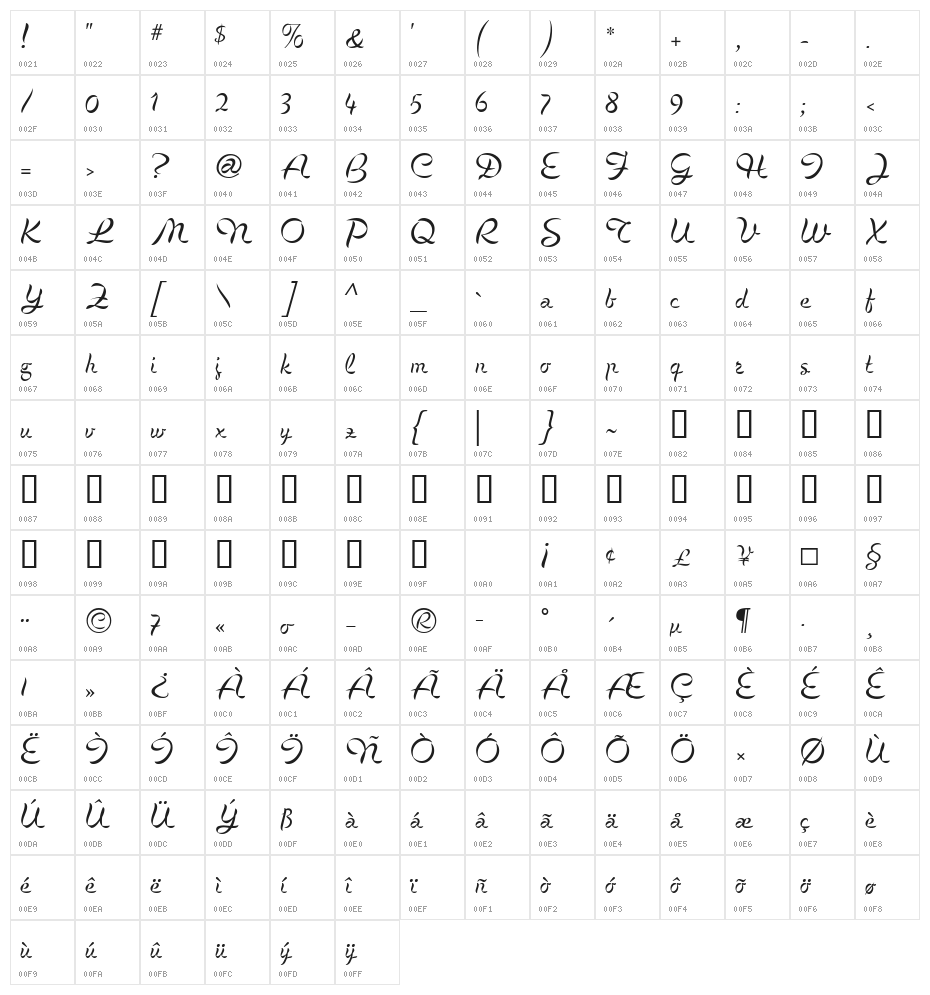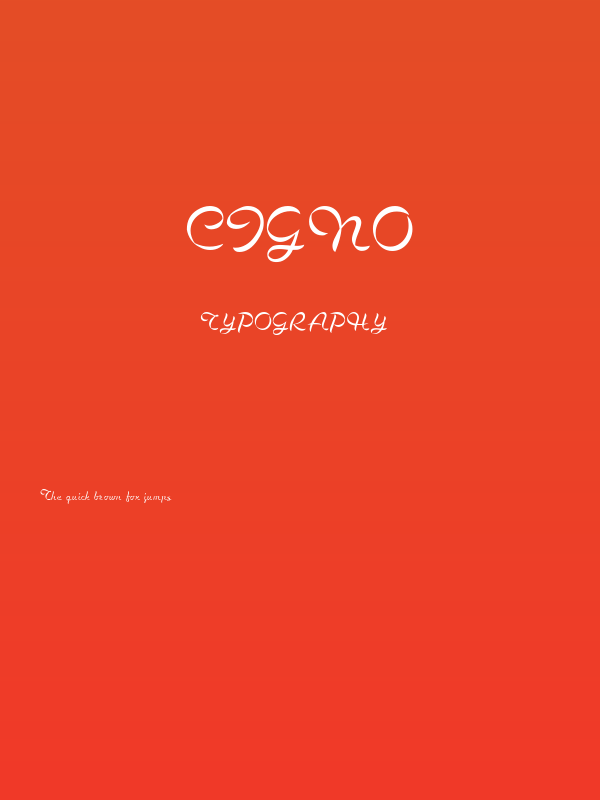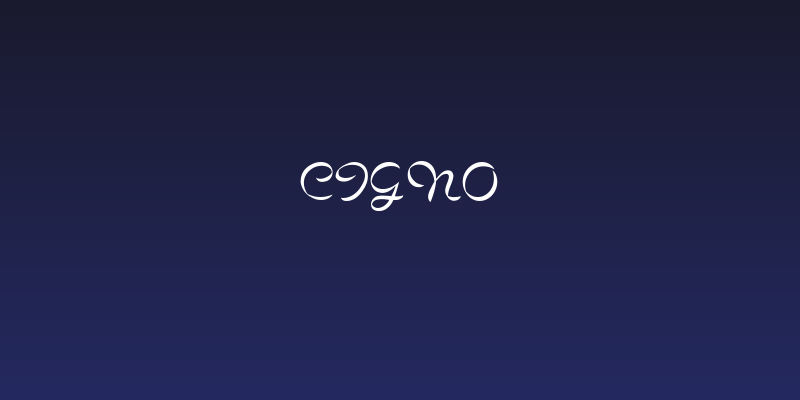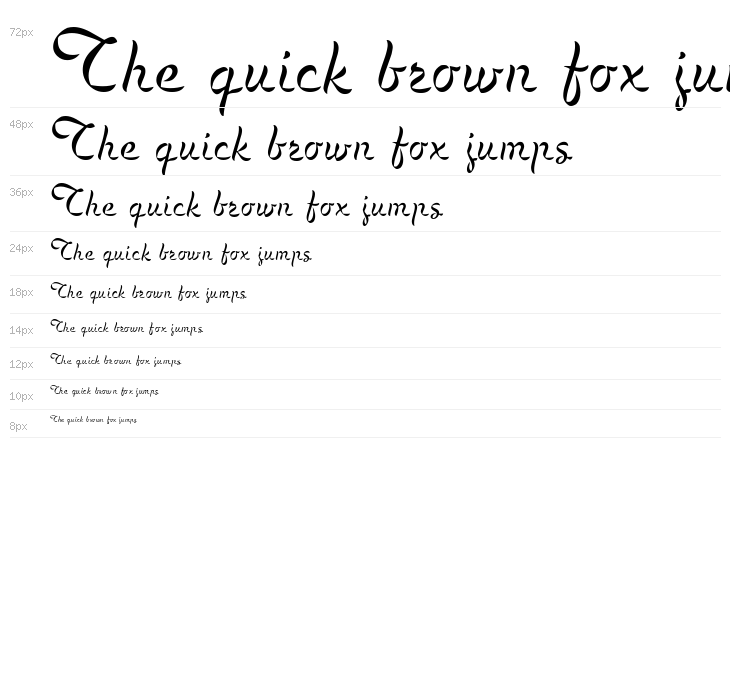
Cigno Font
Cigno Description
This elegant script font features fluid, cursive strokes that convey a sense of sophistication and grace. The uppercase letters are characterized by sweeping curves and flourishes, while the lowercase letters maintain a consistent flow with subtle variations in stroke width. The numerals are designed with a similar cursive style, ensuring a cohesive look across all characters. Special characters are thoughtfully integrated, maintaining the font's overall aesthetic. The font's design is reminiscent of traditional calligraphy, making it suitable for projects that require a touch of elegance and formality.
Overall StyleClassic
Use CaseLogos, Invitations, Decorative text
Proposed ProjectsIdeal for wedding invitations, formal event programs, elegant branding, and high-end product packaging.